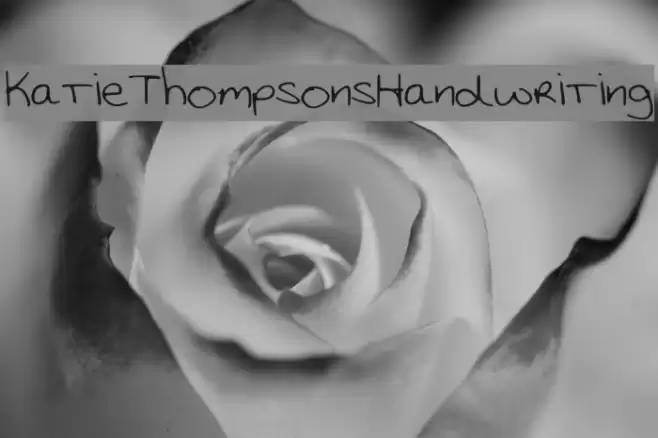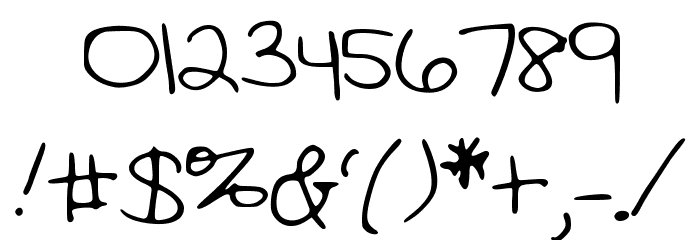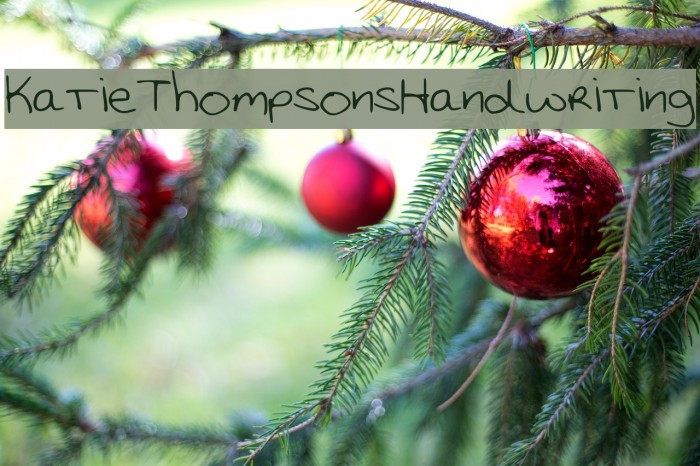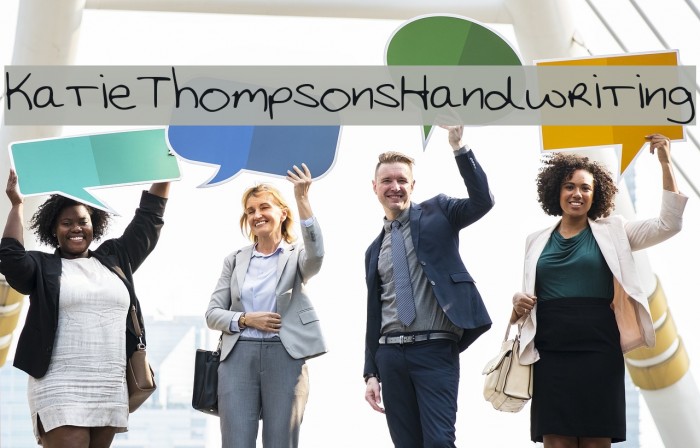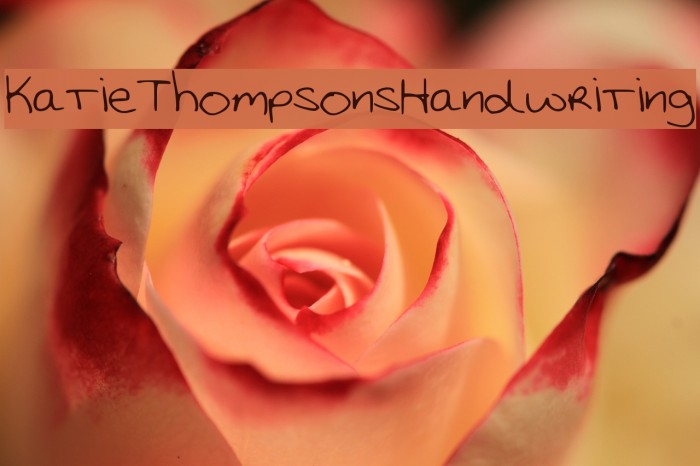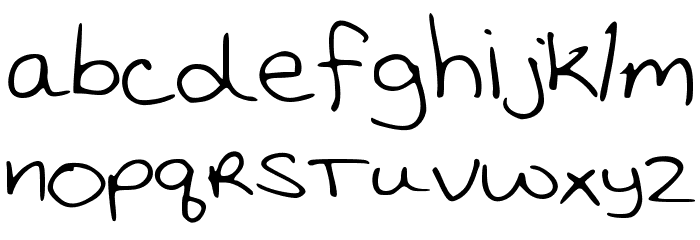
KatieThompsonsHandwriting Font
KatieThompsonsHandwriting Description
This font exudes a casual and personal touch, reminiscent of authentic handwriting. The characters are slightly irregular, adding to the charm and uniqueness of the style. The strokes are smooth and fluid, with a consistent thickness that maintains readability while conveying a relaxed, informal vibe. The uppercase letters are bold and slightly larger than the lowercase, which are more rounded and flowing. The numerals and special characters follow the same handwritten style, ensuring a cohesive look across all text. This font is perfect for projects that require a personal, approachable feel.
A casual, handwritten font with smooth, fluid strokes and a personal touch from Uncategorized fonts.
- Proposed Projects: Ideal for personal notes, invitations, greeting cards, and creative projects that benefit from a handwritten aesthetic.
- Overall Style: Casual, Personal
- Use Case: Invitations, Greeting cards, Personal notes